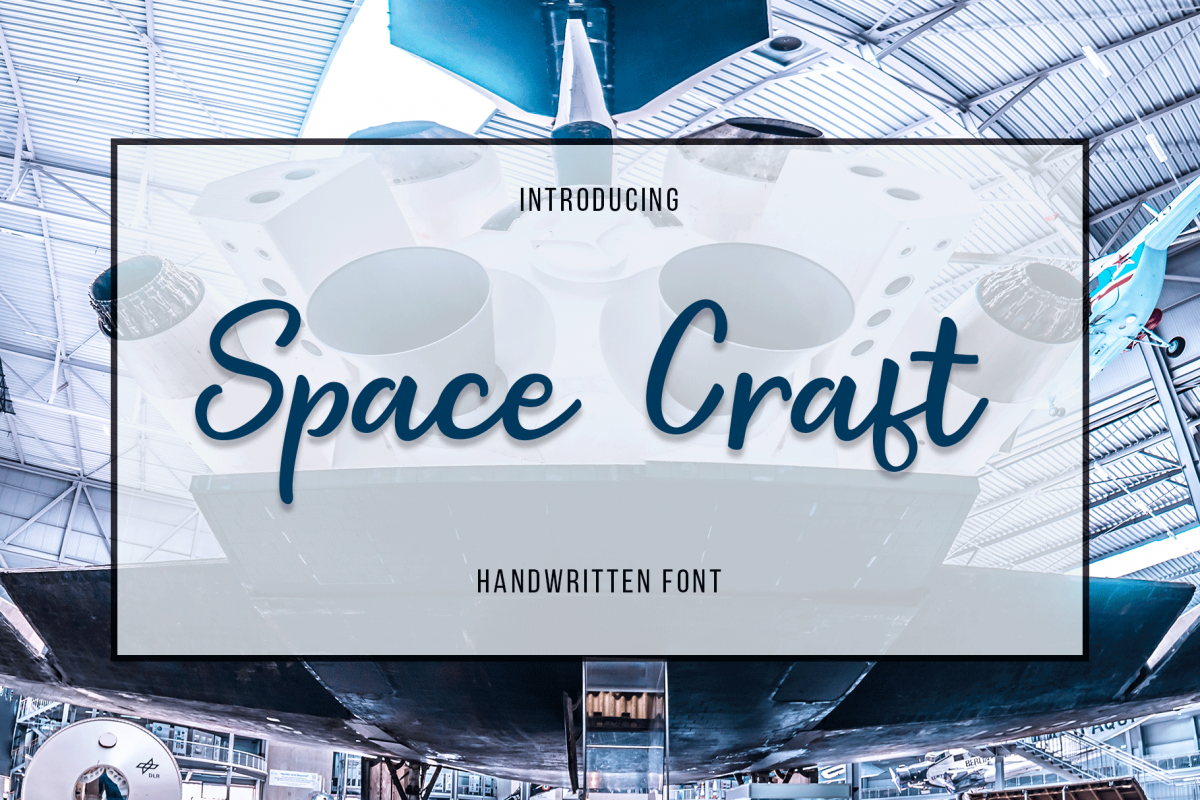
Space Craft
Space Craft  fresh & modern script with a handmade calligraphy style, decorative characters So beautiful on invitation like greeting cards, branding materials, business cards, quotes, posters, and more!!